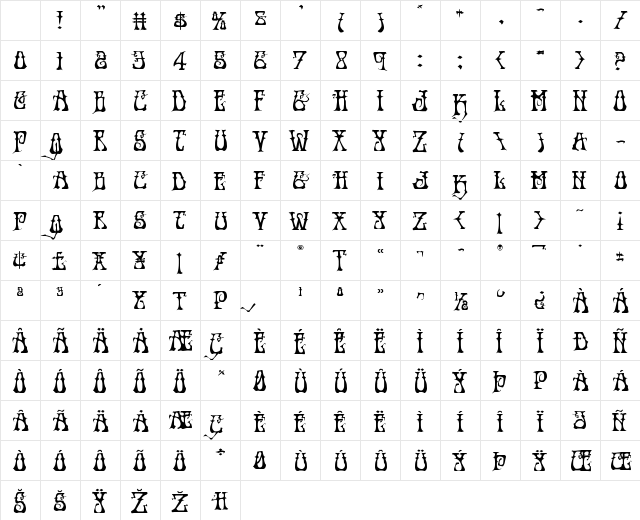
Complete Instant Zen Expanded glyph index. Displaying only characters natively supported by Instant Zen Expanded font.
Instant Zen is a composed and adaptable typeface that performs quietly and consistently across a wide range of design contexts.